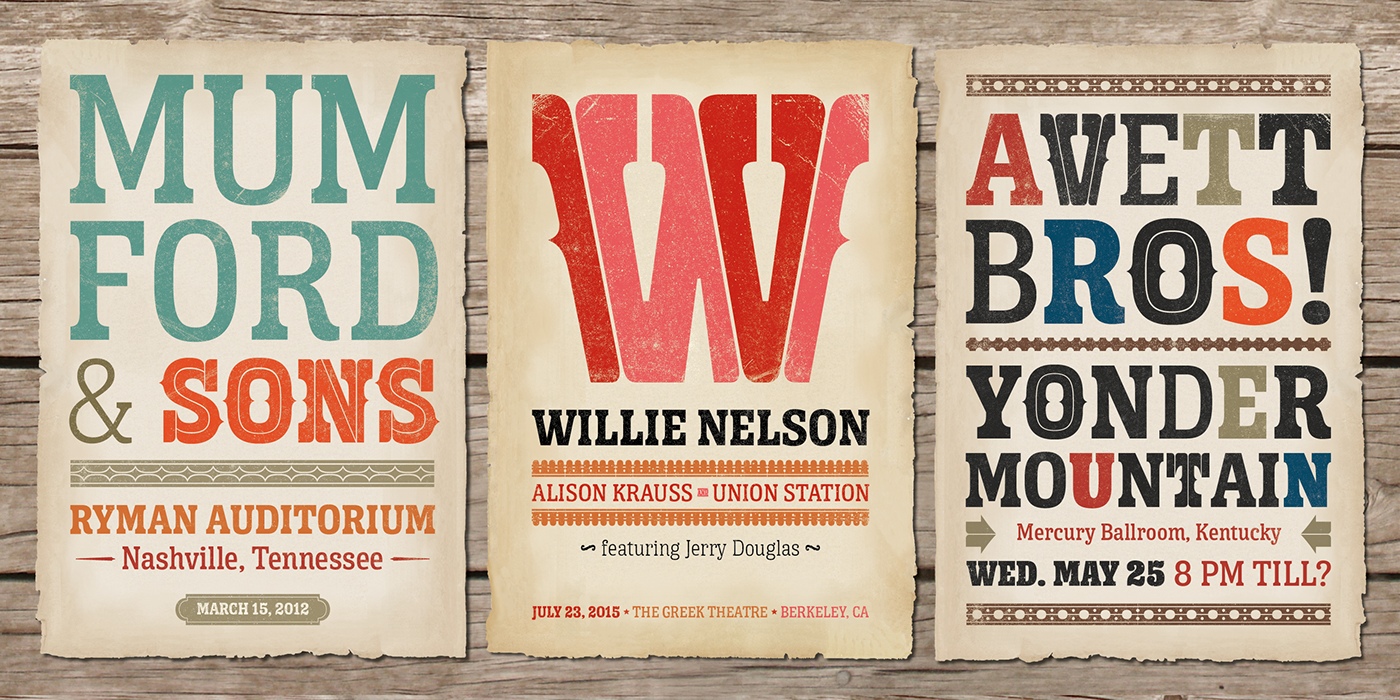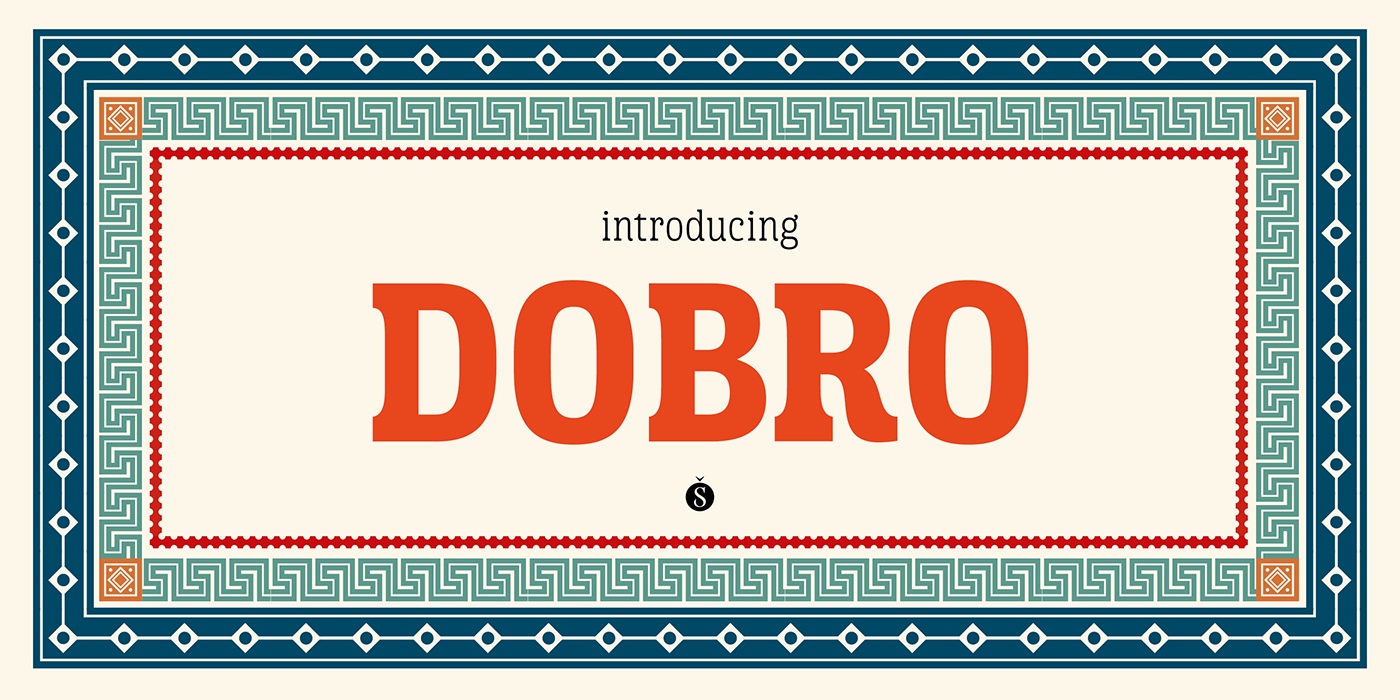
Dobro Font excels in bluegrass music festival posters, country music venue signage, acoustic guitar shop branding, folk music album covers, roots music documentary titles, Americana band merchandise, traditional music workshop materials, string instrument advertising, authentic music heritage displays, and southern musical culture celebrations. This soulful typeface brings acoustic authenticity and musical tradition to any roots music project.
Dobro Font is exciting because it captures the heartfelt resonance and authentic spirit of traditional American string music, featuring warm, resonant letterforms that echo the rich tonal qualities of dobro guitars and the honest storytelling traditions of folk music. Its musical character instantly evokes the deep emotional connection between musician and audience.
The Dobro Font family includes Light, Regular, Medium, and Bold weights with musical alternates, string-inspired flourishes, acoustic ornamental elements, and traditional music symbols that enhance the folk aesthetic, providing music designers with comprehensive tools for creating typography that honors the authentic spirit of American roots music traditions.
Dobro Font Free Download offers music industry professionals access to one of the most authentically folk-inspired typefaces available for traditional music applications. This exceptional font has gained recognition among bluegrass festivals, folk music venues, and roots music organizations for its ability to communicate musical heritage and acoustic authenticity through typography that captures the essence of American string music traditions.
Folk music marketers appreciate Dobro Font for its exceptional ability to evoke specific musical genres and create immediate connections with traditional music audiences through carefully crafted letterforms. The font's acoustic character and heritage details create instant associations with mountain music, front porch sessions, and the timeless appeal of authentic American folk traditions that resonate across generations.
The cultural authenticity of Dobro Font draws inspiration from the rich history of American string music, Appalachian folk traditions, and the handcrafted instruments that define bluegrass and country music, making it particularly effective for brands seeking to establish connections with musical heritage and authentic acoustic experiences. Music teams working on traditional projects find this font essential.
Whether used for bluegrass festivals, folk music venues, or acoustic instrument retailers, Dobro Font delivers the perfect synthesis of musical authenticity and cultural heritage. Its acoustic appeal and folk tradition make it an indispensable choice for brands that celebrate the honest artistry, cultural heritage, and timeless emotional power of traditional American roots music.